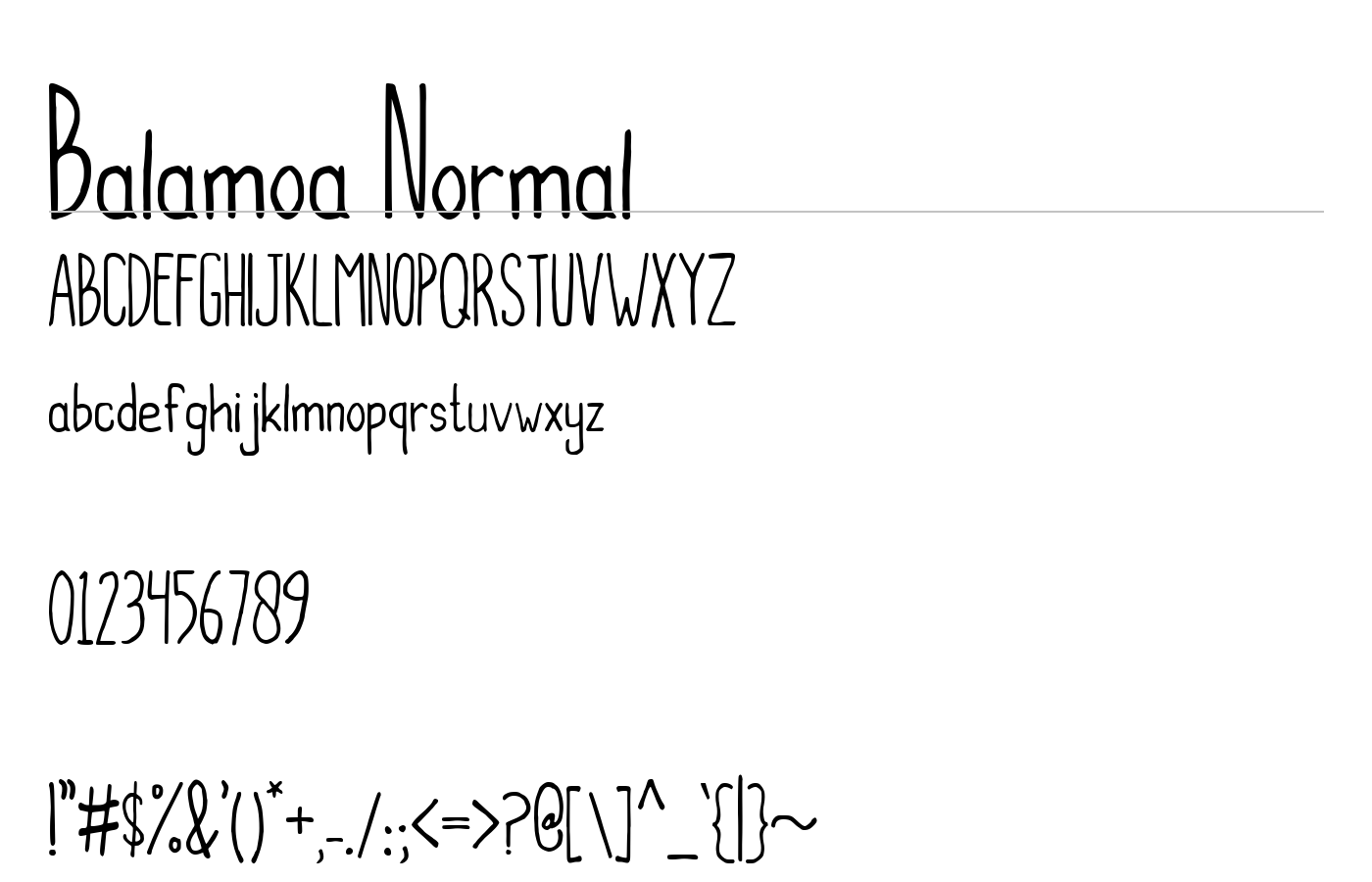
Balamoa is a tall, narrow sans serif font with a playful, handwritten style that feels casual and approachable. Its slender letterforms and slightly irregular strokes give it a friendly and informal personality, making it ideal for creative projects, children’s books, or quirky branding. This font works best in headlines or short phrases where a touch of whimsy and individuality is desired.
Balamoa Font
About Balamoa Font